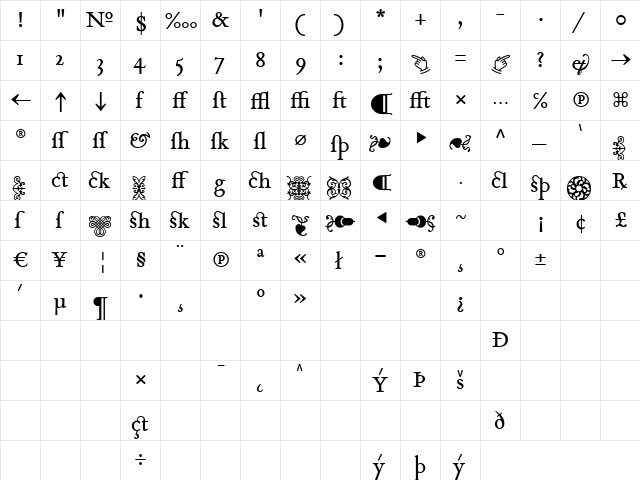
Tribute RomanLigatures
Design Context for Tribute Typeface
Tribute offers clean, dependable letterforms without strong stylistic allegiance, making it a practical choice for designers who need flexibility.